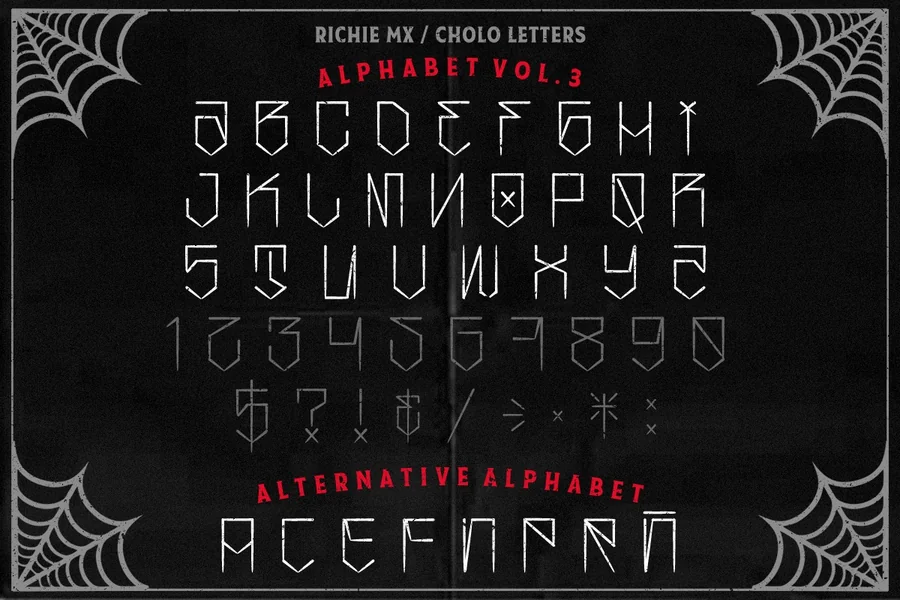
Cholo Letters Font Style Guide For Bold Street Designs
Cholo Letters Font is a typeface that is bold and inspired by the streets that display culture pride and identity. It is usually associated with expressive lettering and street art of the West Coast roots. The fashion is fierce self-assured and bold. This font is used by many individuals who desire an outstanding design, and one that speaks volumes.
Cholo Letters Font boasts of thick strokes that are sharp edges and dramatic curves. It seems to be hand-drawn and emotional. The font type is very tied to urban culture and freedom of creativity. It has no meaning only beauty and this is why designers love it.
There is more than the letters with this font. It tells a story. It demonstrates character and strength. The way it is used can either be bold or smooth. This is the reason why Cholo Letters Font remains a popular font between generations.
History and Cultural Roots of Cholo Letters Font
Cholo Letters Font was a development of street art and graffiti. It was influenced by the Latino communities who expressed themselves through the use of lettering. With time this style turned out to be a pride and voice of identity.
The font was commonly used on the walls of murals that lowriders wore as tattoos and clothing. Every stroke demonstrated trust and identification. The font itself was used as a medium to convey the messages that could not be conveyed through words.
Today Cholo Letters Font is applied to contemporary design works and, at the same time, does not forget its cultural origins. It is a system of its own between tradition and imagination.
Where Cholo Letters Font Is Used Today
There are a lot of creative fields where Cholo Letters Font is utilized. It is good with logos, posters streetwear and album covers. It is employed by designers to provide their work with the harsh and unpolished impression.
It also goes viral on graphics and digital arts on social media. The strong look assists content to shine in clogged feeds. This font is also used by tattoo artists in designing lettering due to the expressive styling.
The font is suitable in the projects that desire emotion and presence. It is not timid and it does not become unnoticed.
Why Designers Love Cholo Letters Font
Cholo Letters Font is the favorite of designers since it possesses personality. It does not look generic. All the letters are alive and deliberate.
It can also be effective in huge and medium size. The lines remain sharp and visible. This allows a wide variety of design types to use it.
Its other reason is its cultural respect. It is a respect to history and community when it is used in a wise manner. That makes any creative project more developed.
How to Use Cholo Letters Font Correctly
Balance is needed in using Cholo Letters Font. It looks best in combination with plain backgrounds. It is too much hidden with details.
It should be applied to titles logos and short phrases. Long text paragraphs can lower the readability. Allow the type to breathe and talk.
The selection of the appropriate color is also important. The letters are better highlighted by using high contrast colors. Dark tones often work best.
Choosing the Right Cholo Letters Font for Your Project
The selection of the appropriate Cholo Letters Font is on your objective. Consider the message you want to convey. Powerful messages should have heavy lines. Emotional messages should be smoother.
Try the font of varying sizes. View how it appears on screens and prints. Make sure it stays readable.
Another thing is to honour the cultural origins of the style. Use it in a meaningful manner.
Final Thought
Cholo Letters Font is not just a selection of design. It is a voice of culture power and inventiveness. The use of respect will bring depth and meaning to any project. This typeface still has a lot of inspiration to artists and designers worldwide.
What is Cholo Letters Font used for?
It is used for logos posters tattoos streetwear and bold digital designs
Is Cholo Letters Font easy to read?
Yes when used in short text and proper spacing
Can Cholo Letters Font be used for branding?
Yes it works well for brands that want a strong identity
Does Cholo Letters Font work for modern design?
Yes it blends tradition with modern style very well